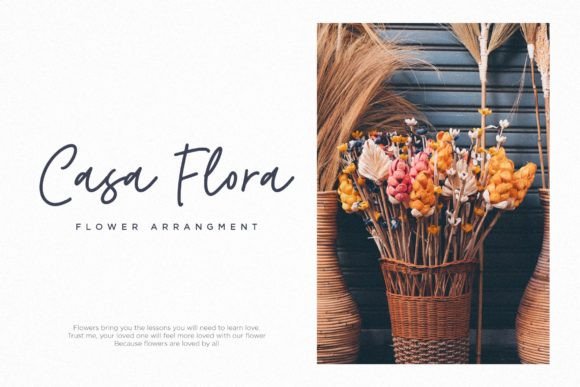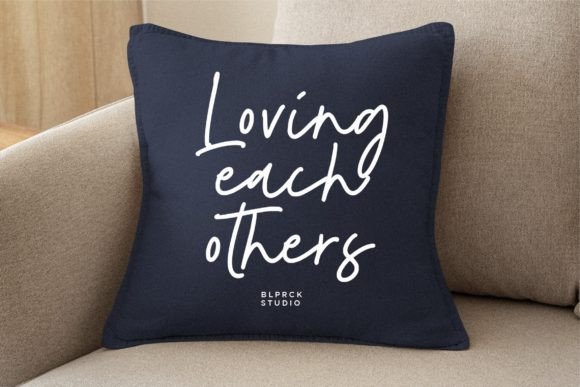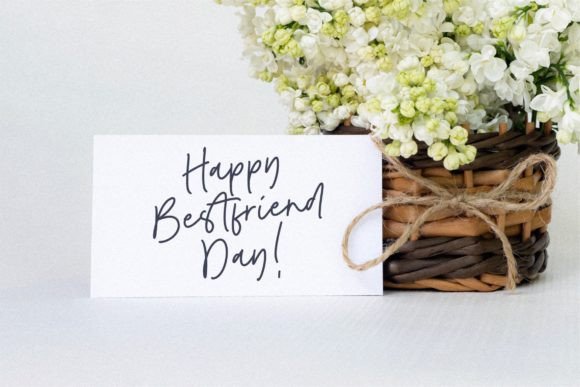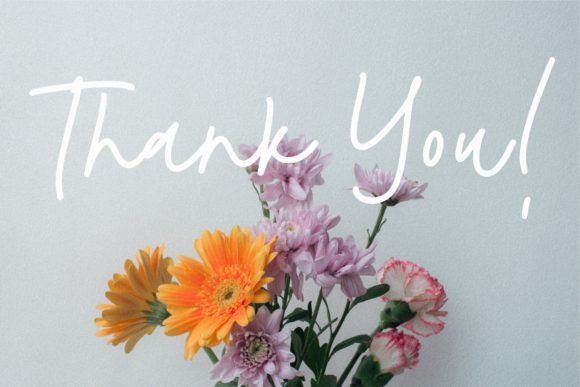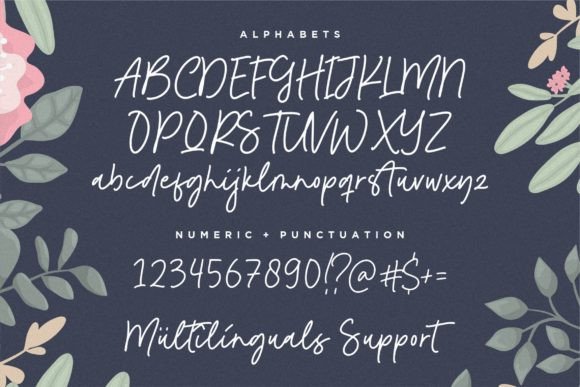
Discover the Elegance of Ambrosia History Font: A Monoline Handwritten Marvel
In the world of typography, fonts play a crucial role in defining the aesthetic and tone of a design project. Among the numerous fonts available, Ambrosia History stands out as a monoline handwritten font that embodies cleanliness, elegance, and versatility. With its smooth, effortless lines and understated sophistication, Ambrosia History has become the go-to choice for designers seeking a modern yet timeless look.
The Origins of Ambrosia History
Ambrosia History is a carefully crafted font, designed to cater to the diverse needs of designers and crafters. Its creation involved a meticulous process, ensuring that every aspect of the font, from its letterforms to its spacing, is refined and precise. This attention to detail has resulted in a font that is not only visually appealing but also highly functional.
Key Features of Ambrosia History
- Monoline Handwritten Style: Ambrosia History boasts a monoline handwritten style that gives it a unique, elegant appearance. The font’s smooth lines and curves create a sense of fluidity, making it perfect for designs that require a touch of sophistication.
- Clean and Elegant Aesthetic: The font’s clean and elegant aesthetic makes it suitable for a wide range of design projects, from logos and branding to invitations and packaging. Its understated sophistication ensures that it complements rather than overpowers the content.
- Versatility: One of the standout features of Ambrosia History is its versatility. The font can be used for various design projects, including:
- Logos and branding: Create a lasting impression with a unique and memorable logo.
- Invitations: Add a touch of elegance to your invitations, making them perfect for special occasions.
- Packaging: Elevate your packaging design with a font that exudes sophistication and style.
- Timeless Appeal: Despite being a modern font, Ambrosia History has a timeless appeal that ensures it won’t go out of style anytime soon. Its classic yet contemporary design makes it an excellent choice for designers seeking a font that will stand the test of time.
Why Choose Ambrosia History?
With so many fonts available, why should designers and crafters choose Ambrosia History? Here are a few compelling reasons:
- Unique and Memorable: Ambrosia History’s distinctive monoline handwritten style makes it a unique and memorable font that can help your design stand out from the crowd.
- Ease of Use: The font’s clean and elegant aesthetic ensures that it’s easy to read and understand, making it perfect for designs that require clear communication.
- Highly Versatile: As mentioned earlier, Ambrosia History is incredibly versatile, making it suitable for a wide range of design projects.
Tips for Using Ambrosia History
To get the most out of Ambrosia History, here are a few tips:
- Pair it with Other Fonts: Experiment with pairing Ambrosia History with other fonts to create a unique and visually appealing design.
- Use it for Headings and Titles: Ambrosia History’s elegant aesthetic makes it perfect for headings and titles, adding a touch of sophistication to your design.
- Experiment with Colors: Don’t be afraid to experiment with different colors to find the perfect combination that complements your design.
Ambrosia History is a monoline handwritten font that offers a perfect blend of elegance, versatility, and timeless appeal. Its smooth, effortless lines and understated sophistication make it an excellent choice for designers and crafters seeking a modern yet classic look. With its wide range of applications and ease of use, Ambrosia History is sure to become a staple in your design toolkit.